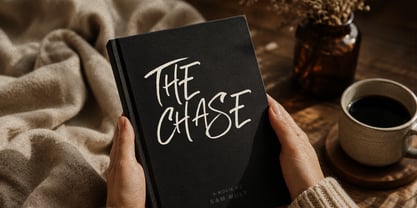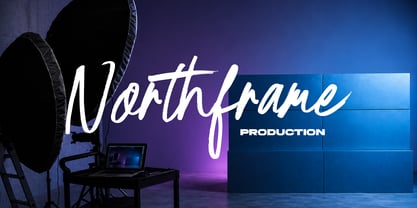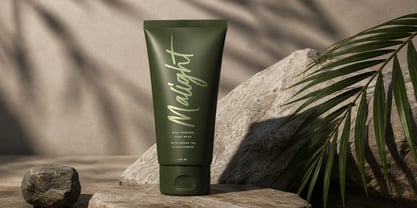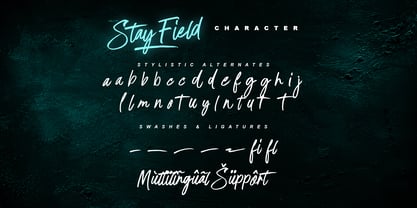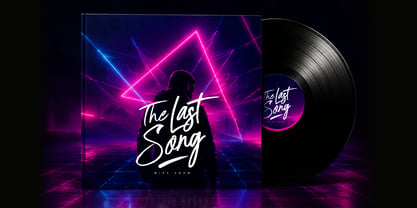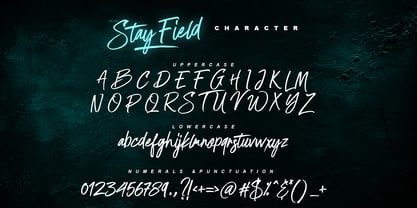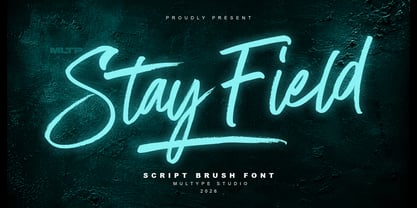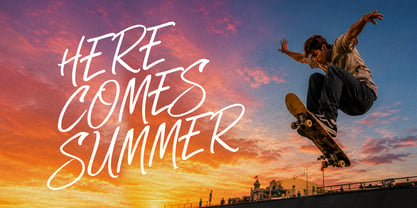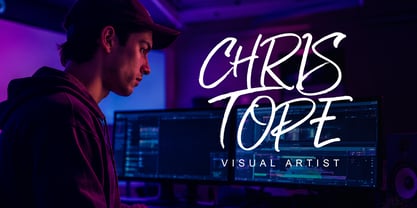
MLTP Stay Field
by Multype Studio
The MLTP Stay Field Font Family was designed by Mulia Yanto and published by Multype Studio. MLTP Stay Field contains 1 styles. More about this family
MLTP Stay Field is a bold and expressive brush script font crafted to capture the energy of authentic hand-drawn lettering. Featuring dynamic brush strokes, natural dry-brush texture, and fluid handwritten movement, this font delivers a perfect balance between casual confidence and creative professionalism.
Designed with strong personality and modern versatility, MLTP Stay Field brings a handcrafted touch to branding projects, logo designs, album artwork, apparel graphics, social media content, product packaging, posters, and lifestyle marketing materials.
Every character is carefully created to preserve the organic imperfections of real brush lettering, resulting in a font that feels energetic, stylish, and highly authentic. The bold stroke structure provides excellent readability while maintaining the spontaneous feel of hand-painted typography.
Whether you're building a streetwear brand, creating music artwork, designing content creator merchandise, or developing modern visual identities, MLTP Stay Field offers the expressive character needed to make your message stand out.
Featuring uppercase and lowercase characters, numbers, punctuation, ligatures, stylistic alternates, swashes, and multilingual support, MLTP Stay Field gives you the flexibility to create authentic hand-lettered designs with a natural and professional appearance.